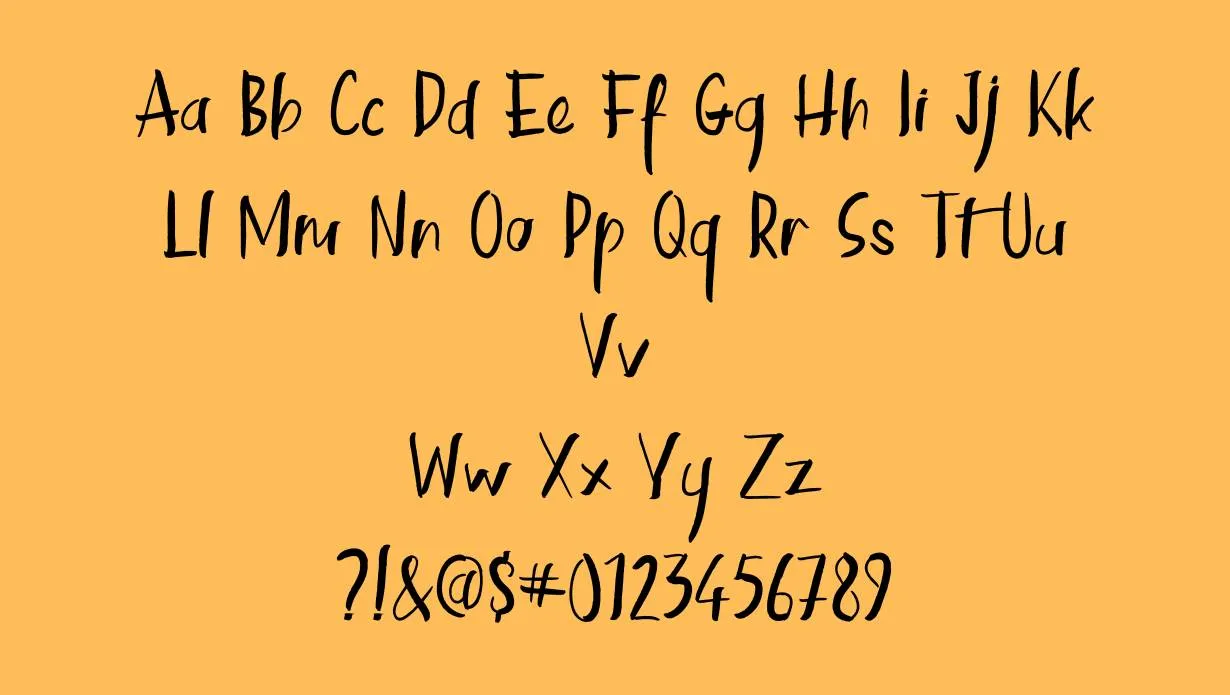
We’re introducing Kinemon Font which belongs to the brush font family and was crafted by Factory Type along with advanced TTF and OTF features.
This stunning font also includes brushy characters in capital case, small cases, figures, punctuations, alternates, accents, and a few special characters.